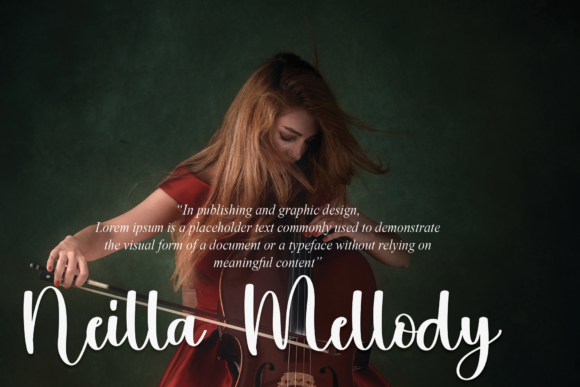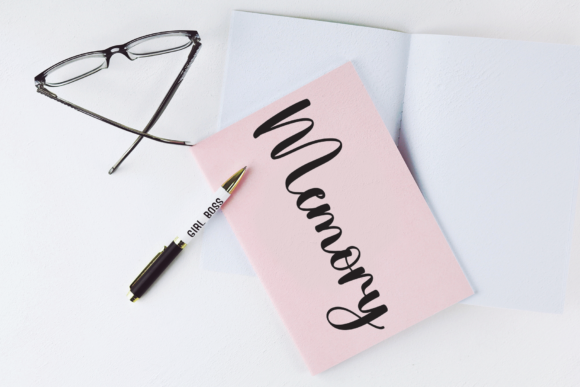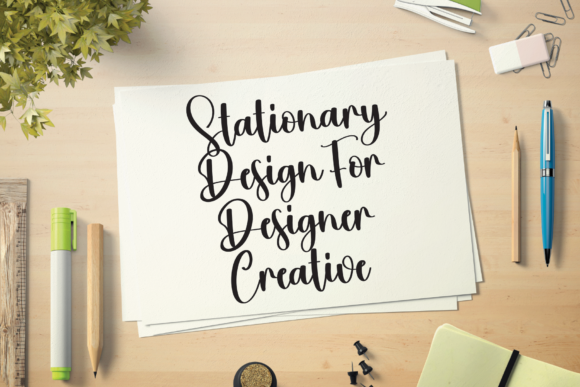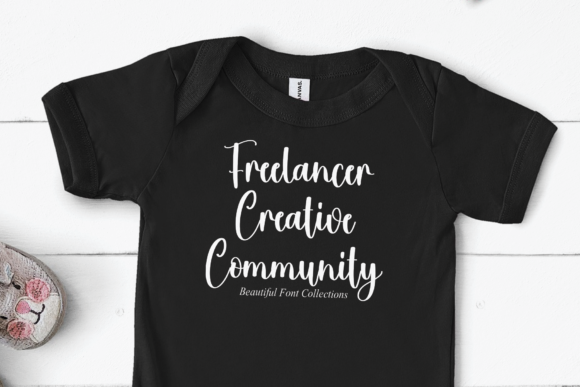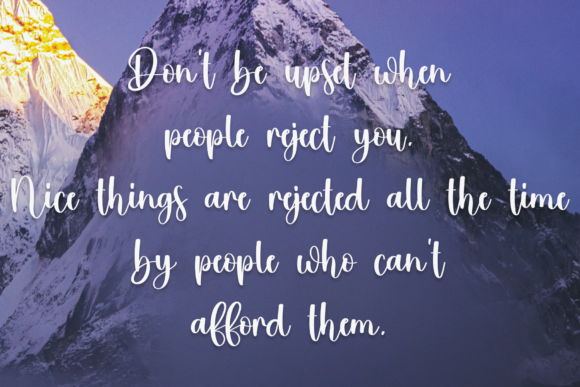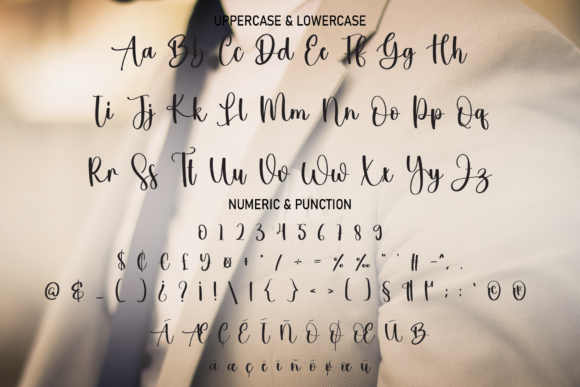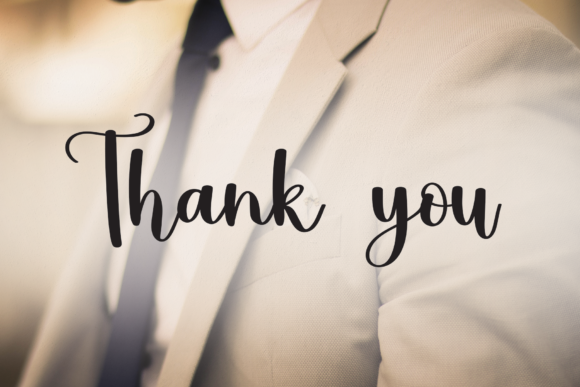
Smittson Font
About Smittson Font
Smittson is a refined and sophisticated handwritten font that has been meticulously crafted to ensure exceptional outcomes. With its graceful and delicate strokes, this font exudes a sense of elegance and refinement, making it a perfect choice for a variety of design projects.
The font’s subtle and nuanced design allows it to seamlessly integrate into various contexts, adding a touch of class and sophistication to your creations. Whether you’re working on wedding invitations, branding materials, greeting cards, or any other design that requires a touch of elegance, Smittson’s understated charm will elevate the overall aesthetic.
The careful attention to detail in Smittson’s letterforms ensures a harmonious balance between legibility and artistic flair. This makes it not only visually appealing but also practical for conveying your message effectively. The font’s versatility allows it to be used in both large headlines and smaller text, ensuring consistency across different elements of your design.
The font’s craftsmanship shines through in its smooth and flowing lines, contributing to a sense of continuity and rhythm. This makes Smittson a delightful choice for projects that seek to convey a sense of grace and refinement. Its handmade quality adds a personal touch to your work, creating a connection with your audience.
Whether you’re aiming for a timeless and classic look or a more contemporary and refined style, Smittson’s adaptability ensures it can be used in a wide range of design themes. Its ability to evoke elegance and class makes it a valuable asset for adding a touch of sophistication to any visual composition.
In addition to its visual attributes, Smittson’s thoughtful design also extends to its technical features. The inclusion of a wide array of glyphs and swashes through PUA encoding offers you the flexibility to customize your text and create unique variations that align with your creative vision.
In summary, Smittson is a font that brings a sense of subtlety, elegance, and class to your design projects. Its carefully crafted letterforms and versatile nature make it a versatile choice for conveying a refined aesthetic that resonates with your audience. Whether used in branding, invitations, or any other design application, Smittson is sure to leave a lasting impression.